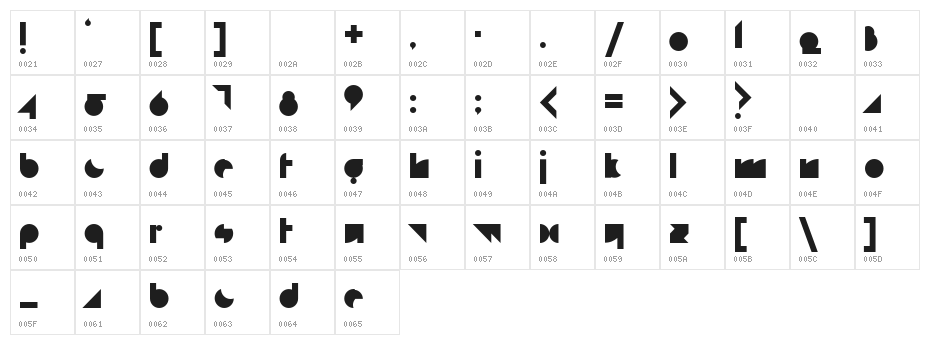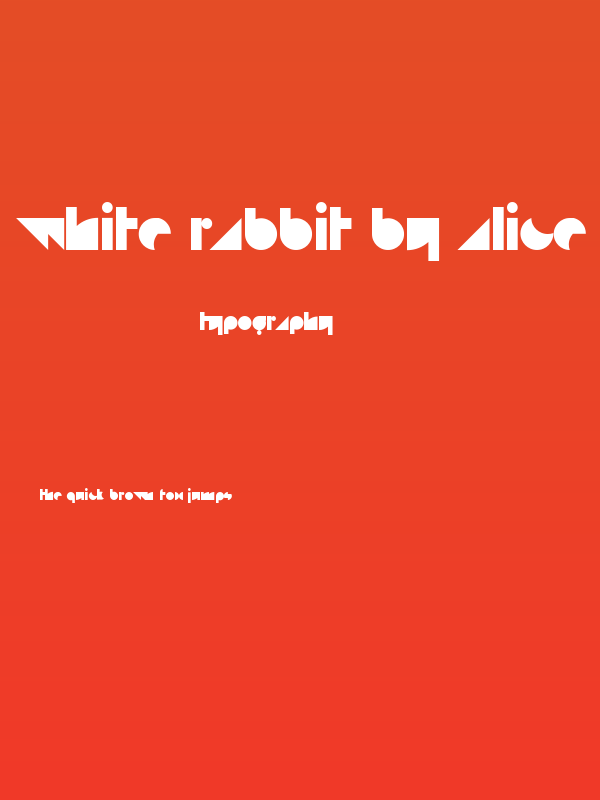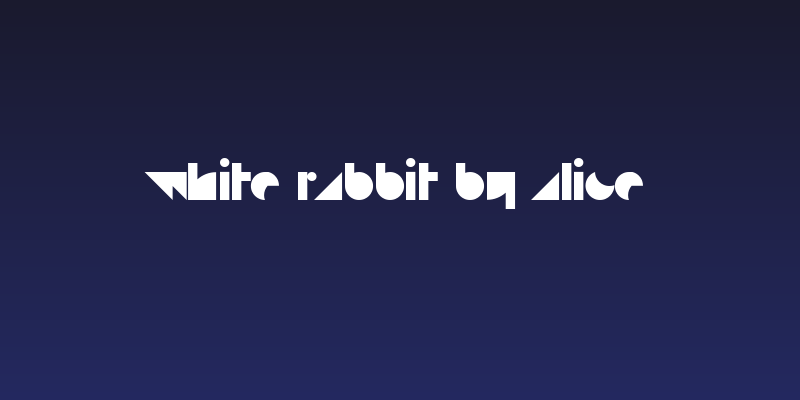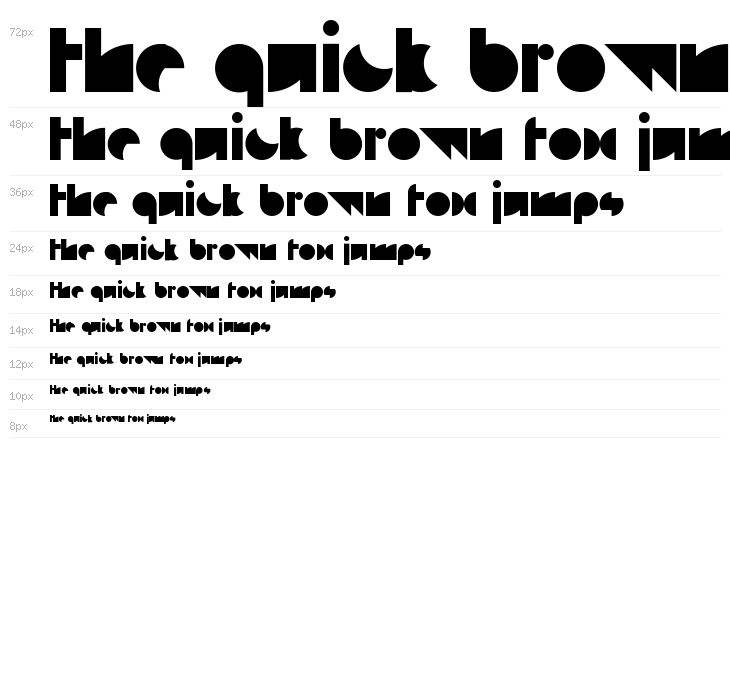
white rabbit by alice Font
white rabbit by alice Description
This font features a bold and geometric design, characterized by its use of solid shapes and sharp angles. The letters are constructed with a combination of circular and triangular elements, creating a unique and modern aesthetic. The uppercase and lowercase letters maintain a consistent style, with the lowercase letters mirroring the uppercase in form but reduced in size. The numbers and special characters follow the same geometric theme, ensuring a cohesive look across all characters. This font's distinct style makes it stand out, offering a visually striking appearance that is both artistic and contemporary.